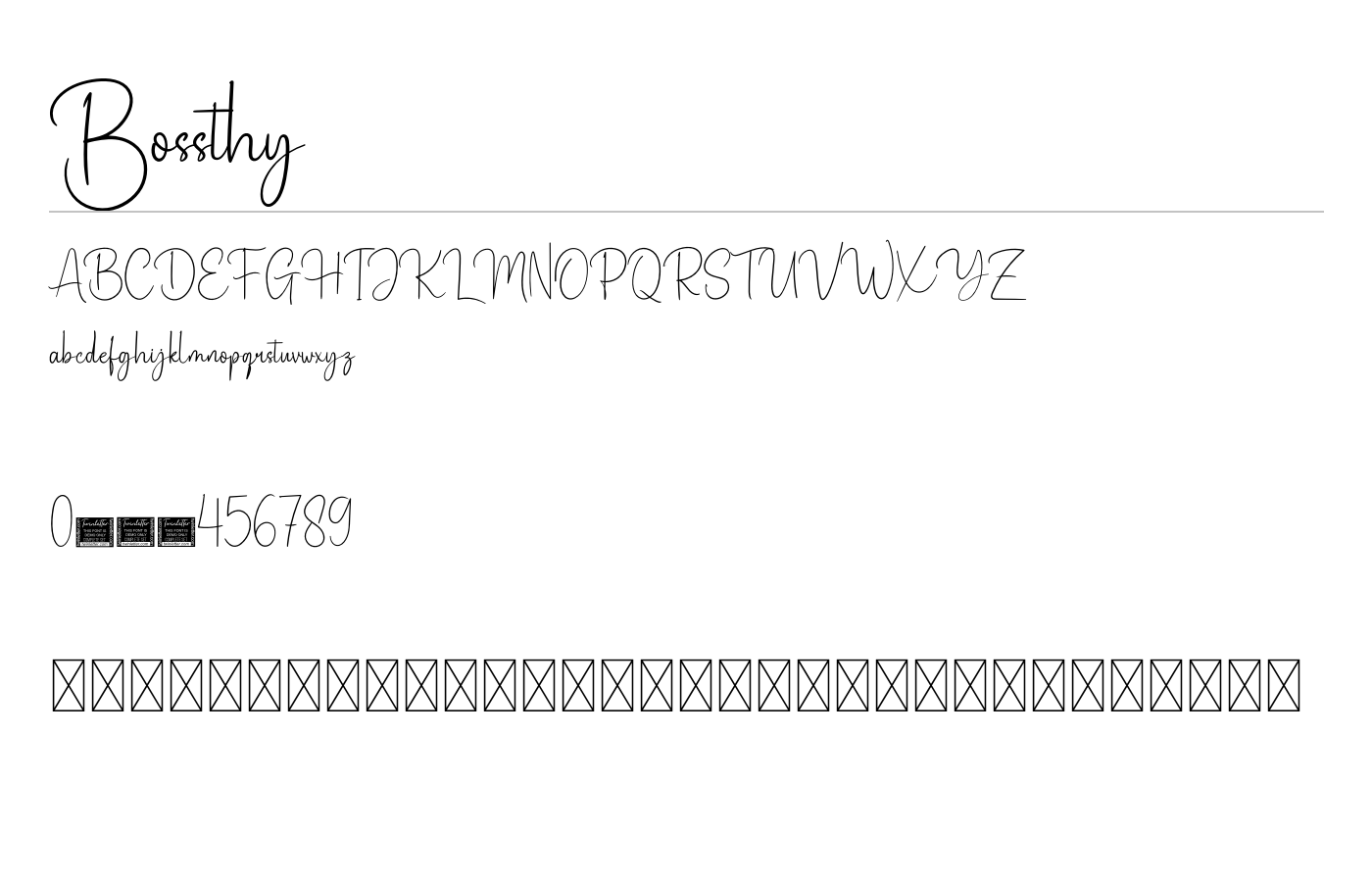
Bossthy is a delicate, handwritten script font with a narrow, light stroke that gives it an elegant and airy feel. Its tall x-height and smooth, flowing lines make it ideal for feminine and sophisticated branding, invitations, or modern editorial designs. This font works beautifully for projects that need a personal, refined touch with a contemporary flair.
Bossthy Font
About Bossthy Font